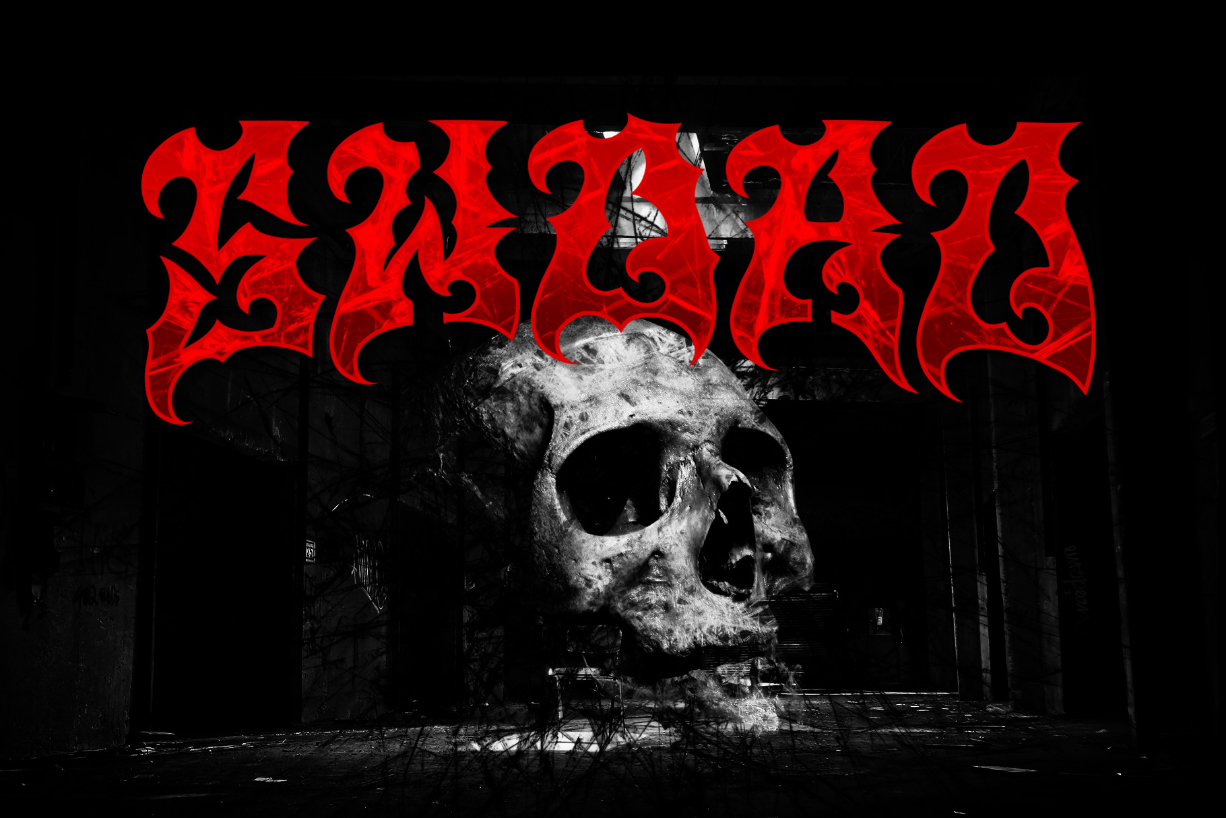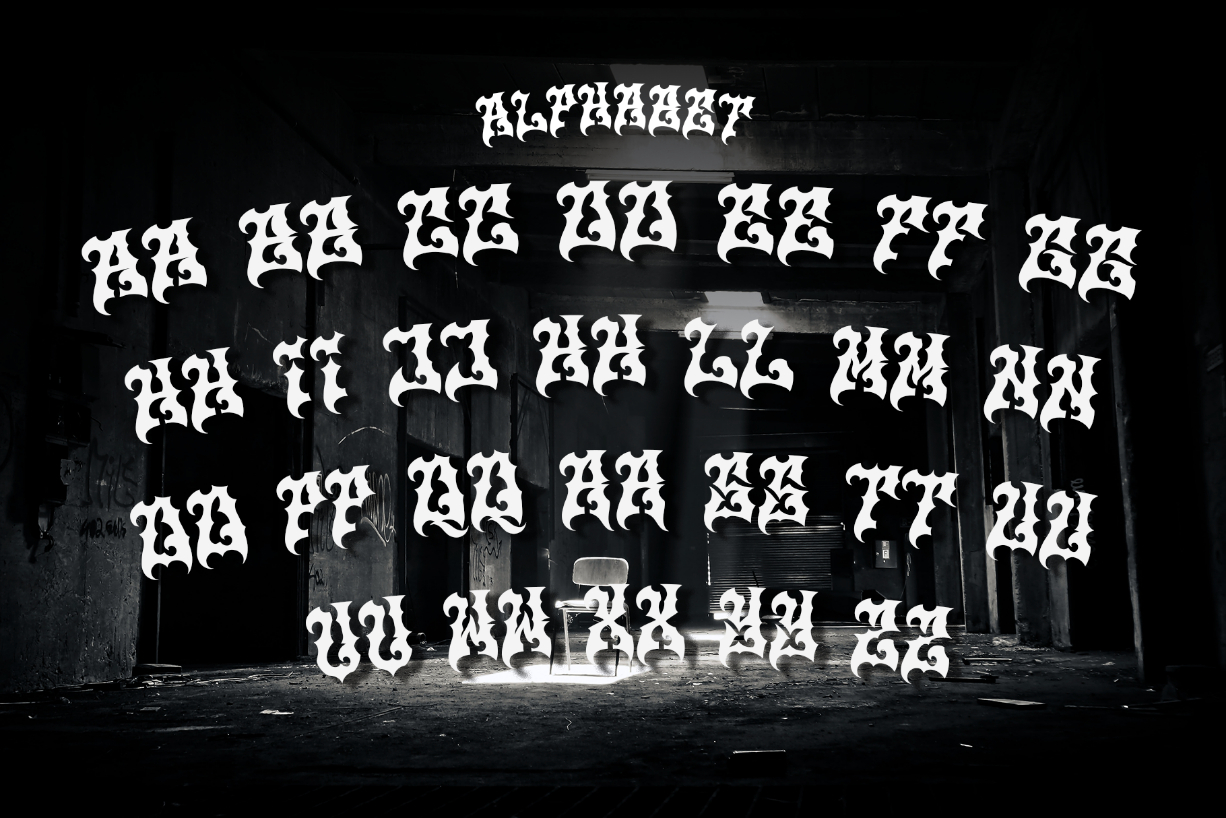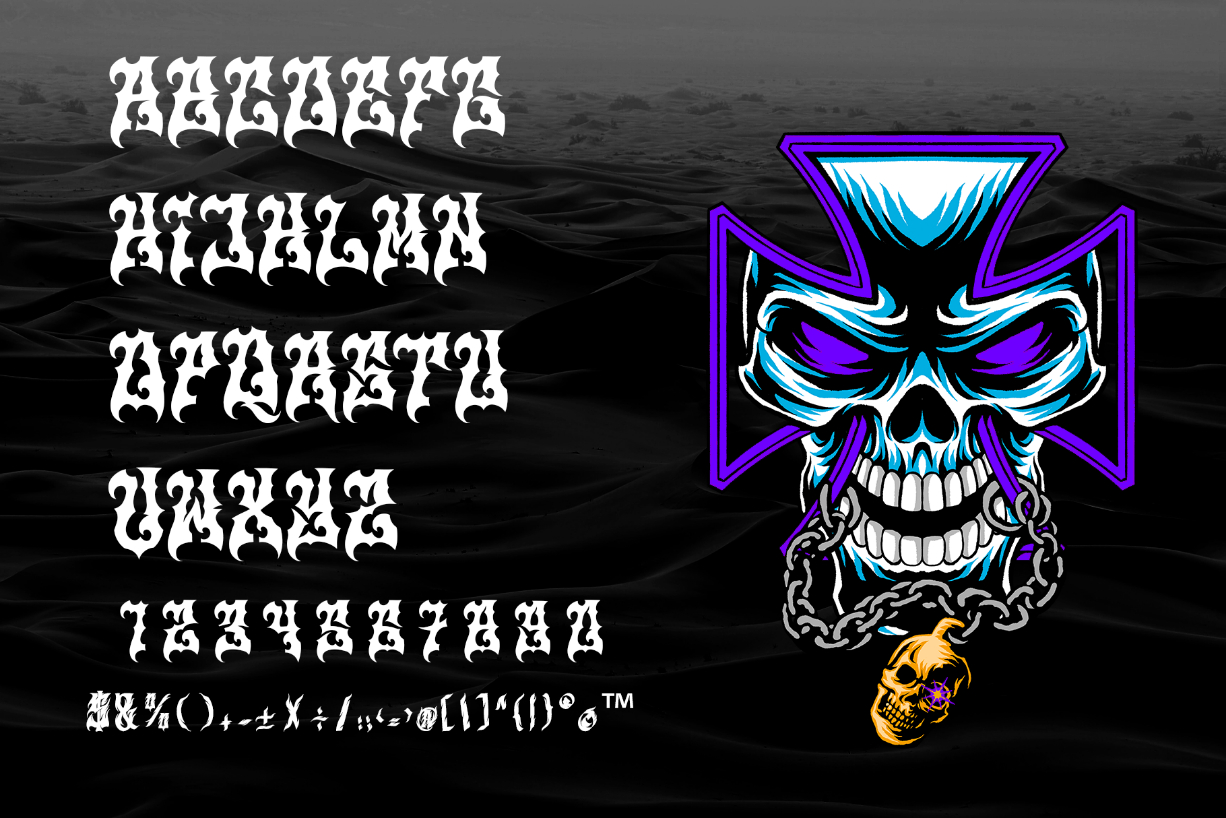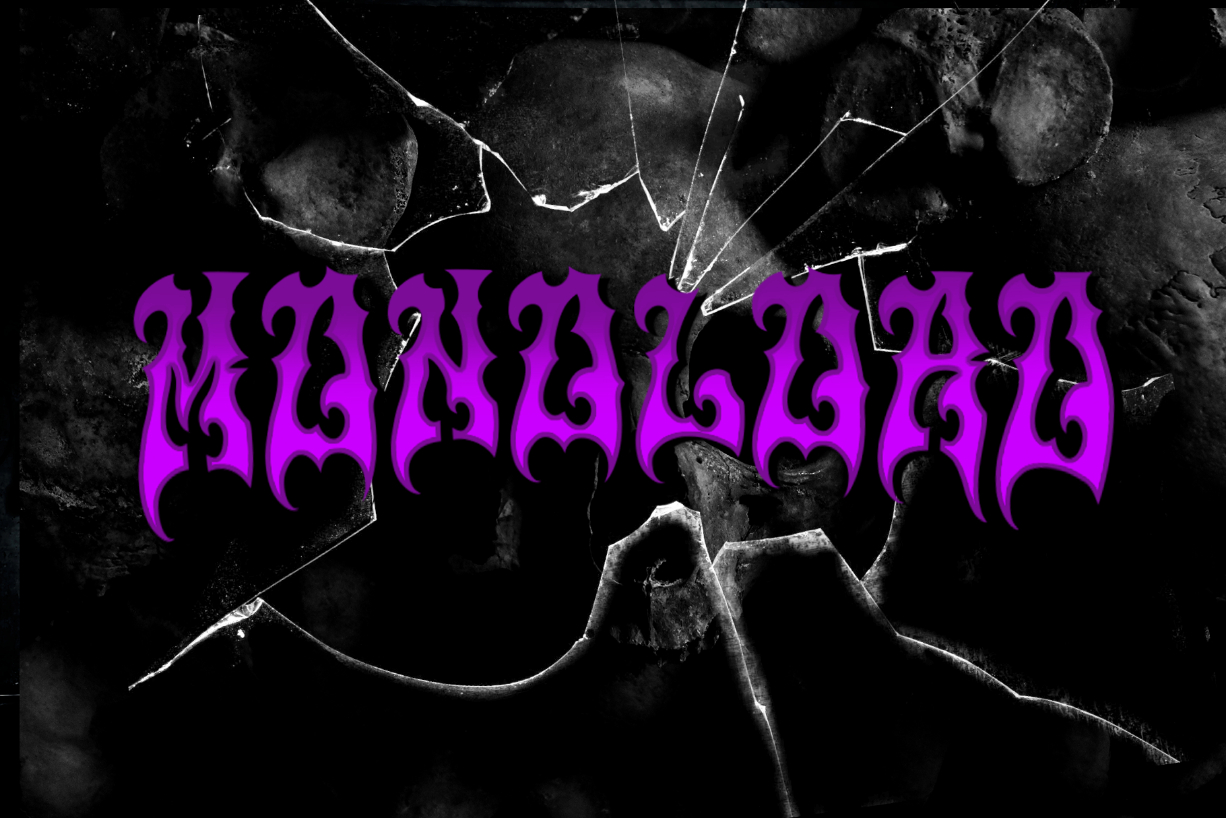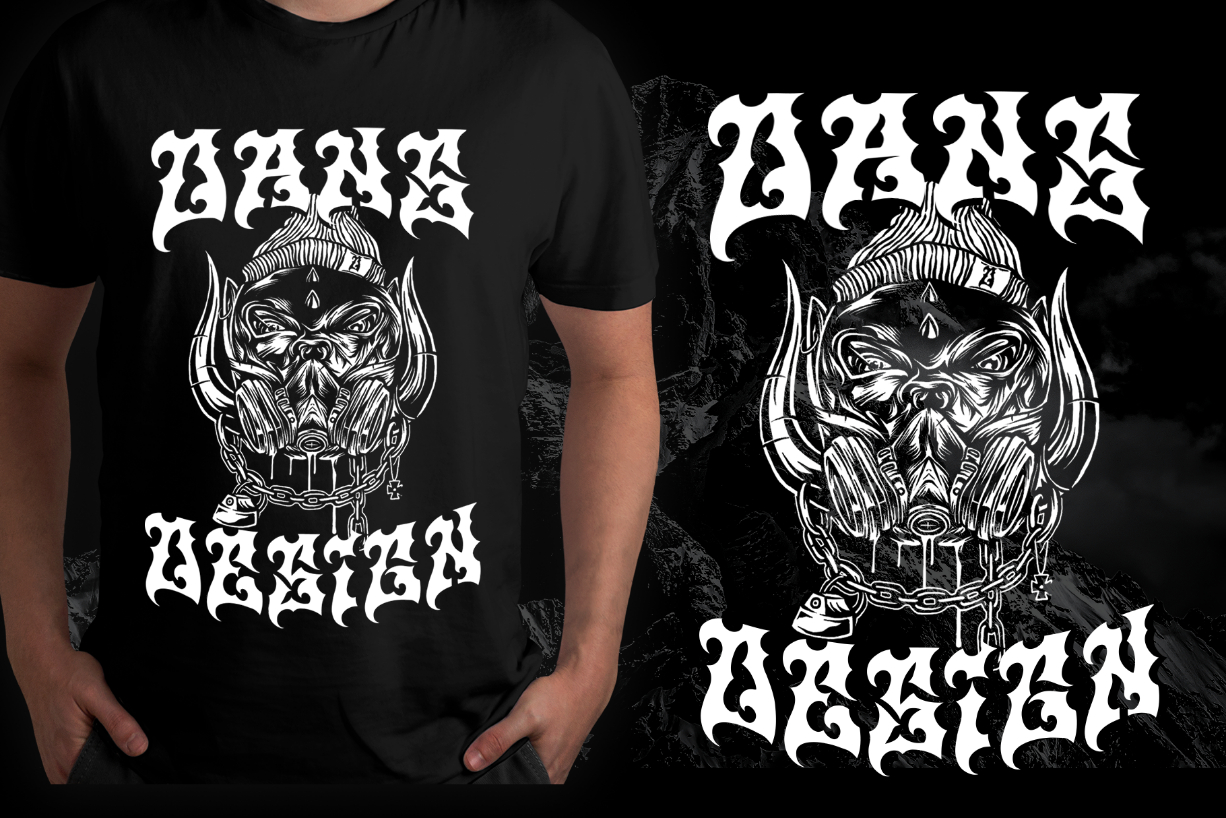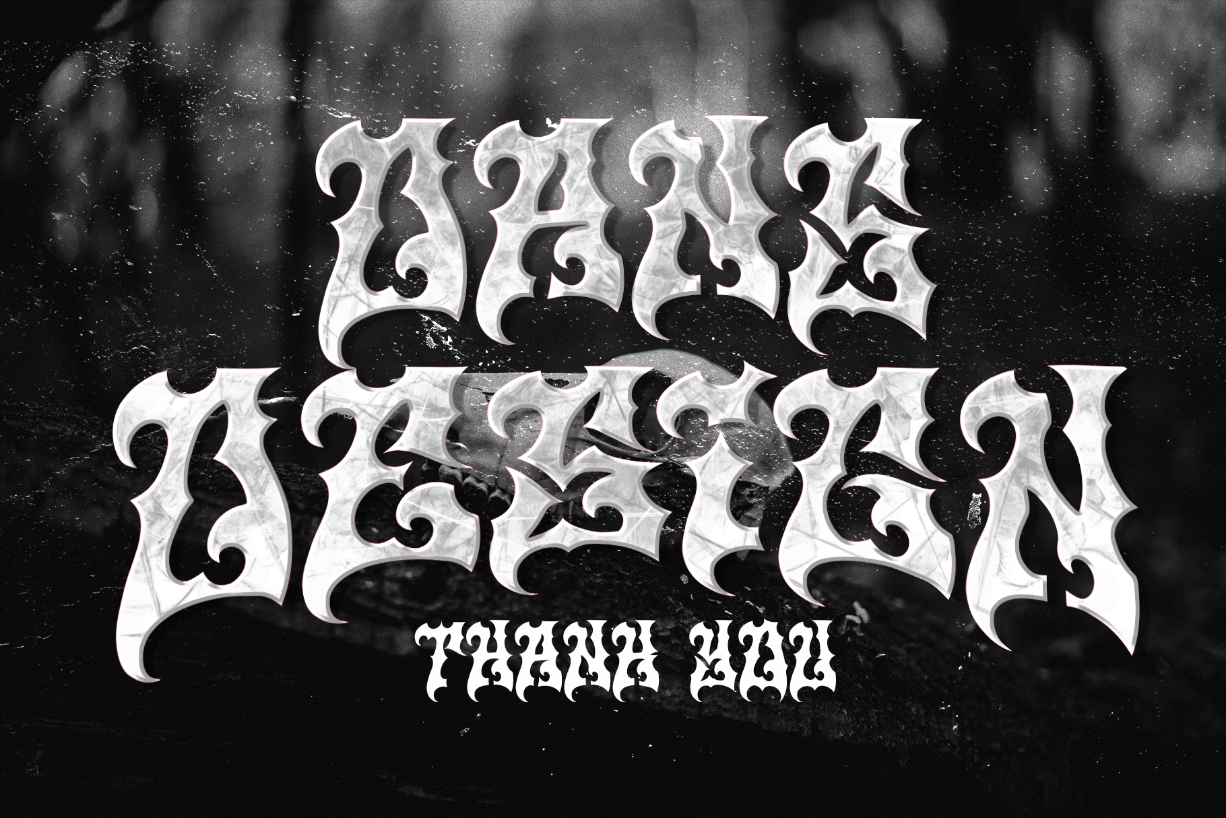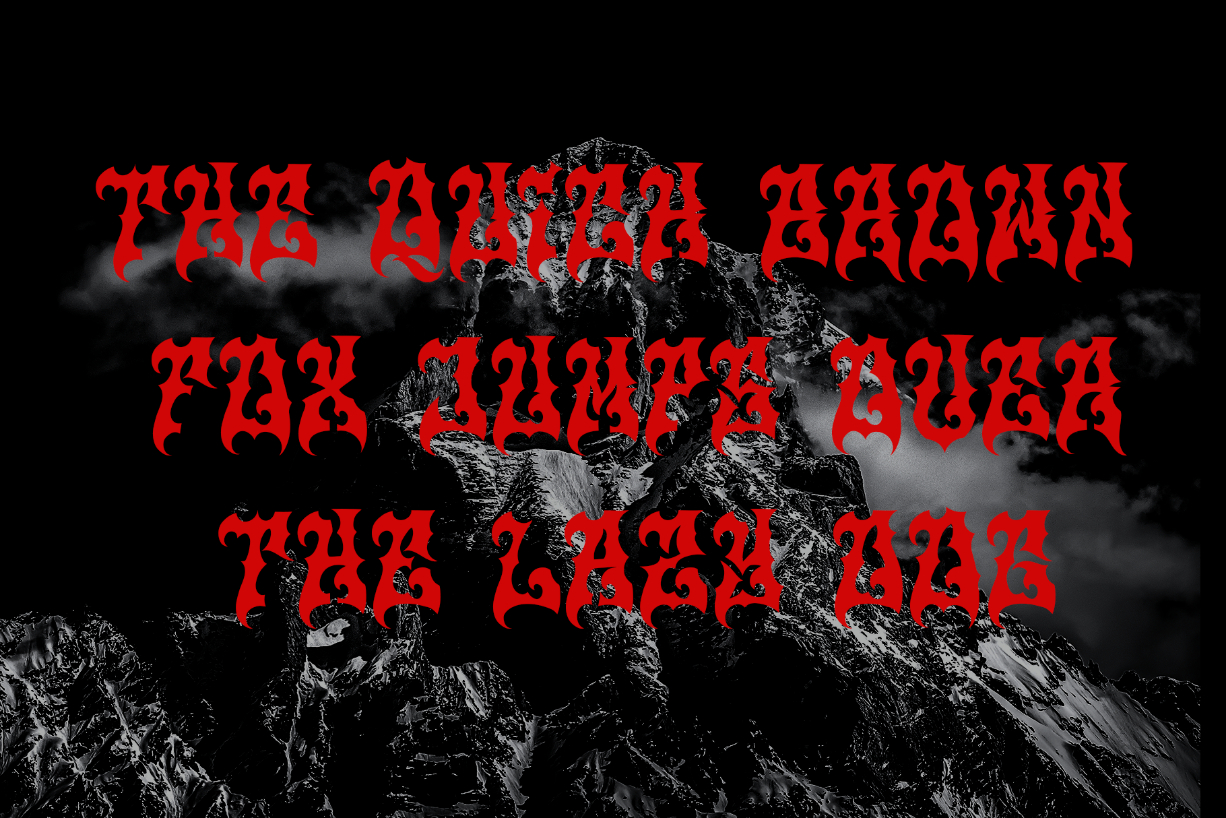
Monolord Font
About Monolord Font
Monolord – Doom Gothic Metal Blackletter Font
Use this strong and impressive typeface to add cool vibes to t-shirts, album covers, magazines, or anything that needs to stand out.